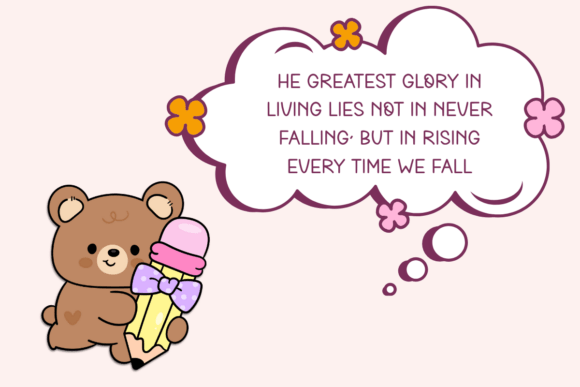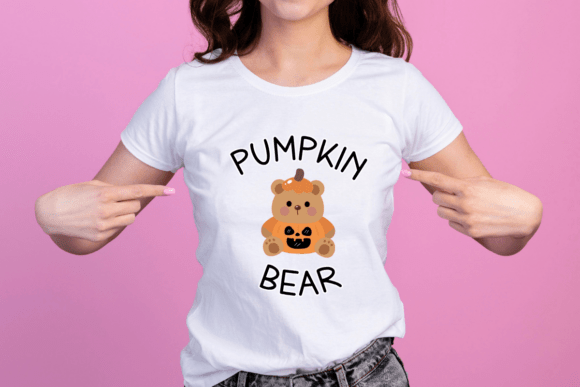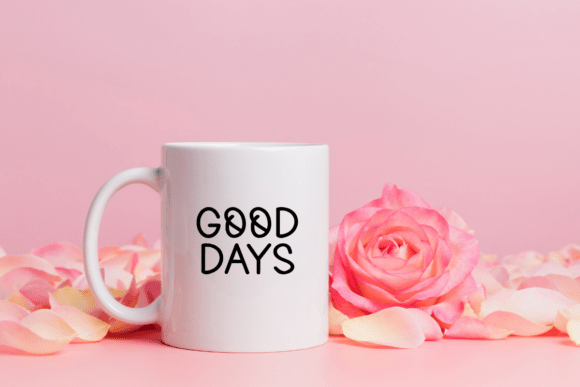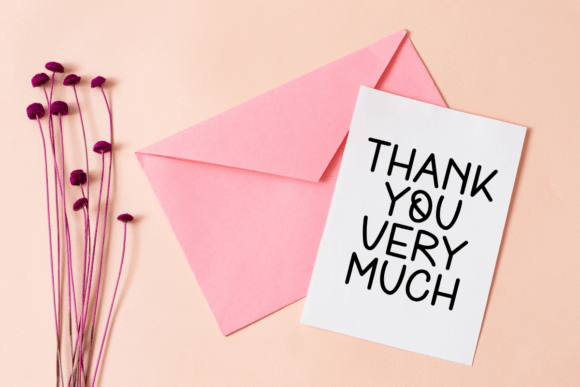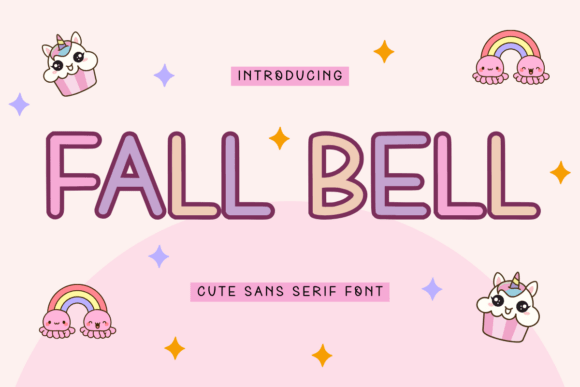
Introducing Fall Bell Font: The Perfect Blend of Warmth and Personality
Are you tired of using generic, overused fonts that lack personality? Look no further than Fall Bell Font, a casual handwritten font that radiates warmth and character. With its smooth strokes, natural curves, and easy-flowing letterforms, Fall Bell captures the charm of authentic handwriting with a modern, approachable feel.
The Characteristics of Fall Bell Font
Fall Bell Font is designed to evoke a sense of friendliness and approachability. Its smooth strokes and natural curves give it a relaxed, effortless feel that’s perfect for a wide range of design applications. The font features:
- Smooth Strokes: Fall Bell’s smooth strokes give it a fluid, handwritten feel that’s easy on the eyes.
- Natural Curves: The font’s natural curves add a touch of warmth and personality to each letterform.
- Easy-Flowing Letterforms: Fall Bell’s letterforms are designed to flow smoothly into one another, creating a sense of continuity and harmony.
Fall Bell Font is incredibly versatile, making it perfect for a wide range of design applications. Some of the most popular uses for this font include:
- Quotes: Add a personal touch to your quotes with Fall Bell’s charming, handwritten feel.
- Invitations: Make your invitations stand out with Fall Bell’s warm, inviting style.
- Branding: Use Fall Bell to add a touch of personality to your brand’s marketing materials.
- Social Media Posts: Elevate your social media posts with Fall Bell’s modern, approachable feel.
The Benefits of Using Fall Bell Font
So why choose Fall Bell Font for your next design project? Here are just a few of the benefits of using this charming font:
- Readability: Fall Bell is designed to be easy to read, making it perfect for long blocks of text or short, snappy headlines.
- Charm: The font’s handwritten feel adds a touch of warmth and personality to any design.
- Versatility: Fall Bell is incredibly versatile, making it suitable for a wide range of design applications.
Tips for Using Fall Bell Font Effectively
To get the most out of Fall Bell Font, here are a few tips to keep in mind:
- Use it sparingly: Fall Bell is best used sparingly, as a accent font to add a touch of personality to your design.
- Pair it with a sans-serif font: Pairing Fall Bell with a sans-serif font can create a nice contrast and add visual interest to your design.
- Experiment with colors: Fall Bell looks great in a variety of colors, so don’t be afraid to experiment and find the perfect hue for your design.
Fall Bell Font is a charming, handwritten font that’s perfect for designers and crafters looking to add a touch of warmth and personality to their designs. With its smooth strokes, natural curves, and easy-flowing letterforms, Fall Bell captures the charm of authentic handwriting with a modern, approachable feel. Whether you’re creating quotes, invitations, branding materials, or social media posts, Fall Bell is the perfect choice.